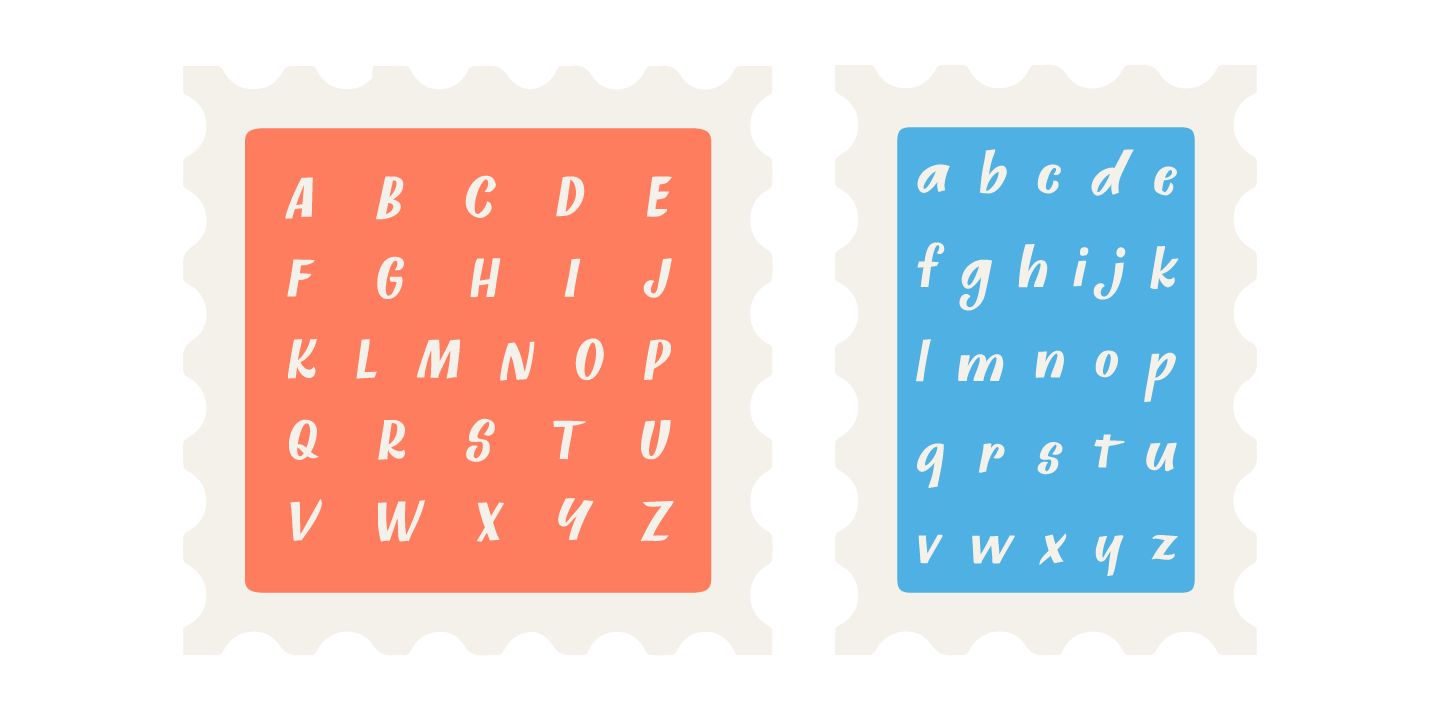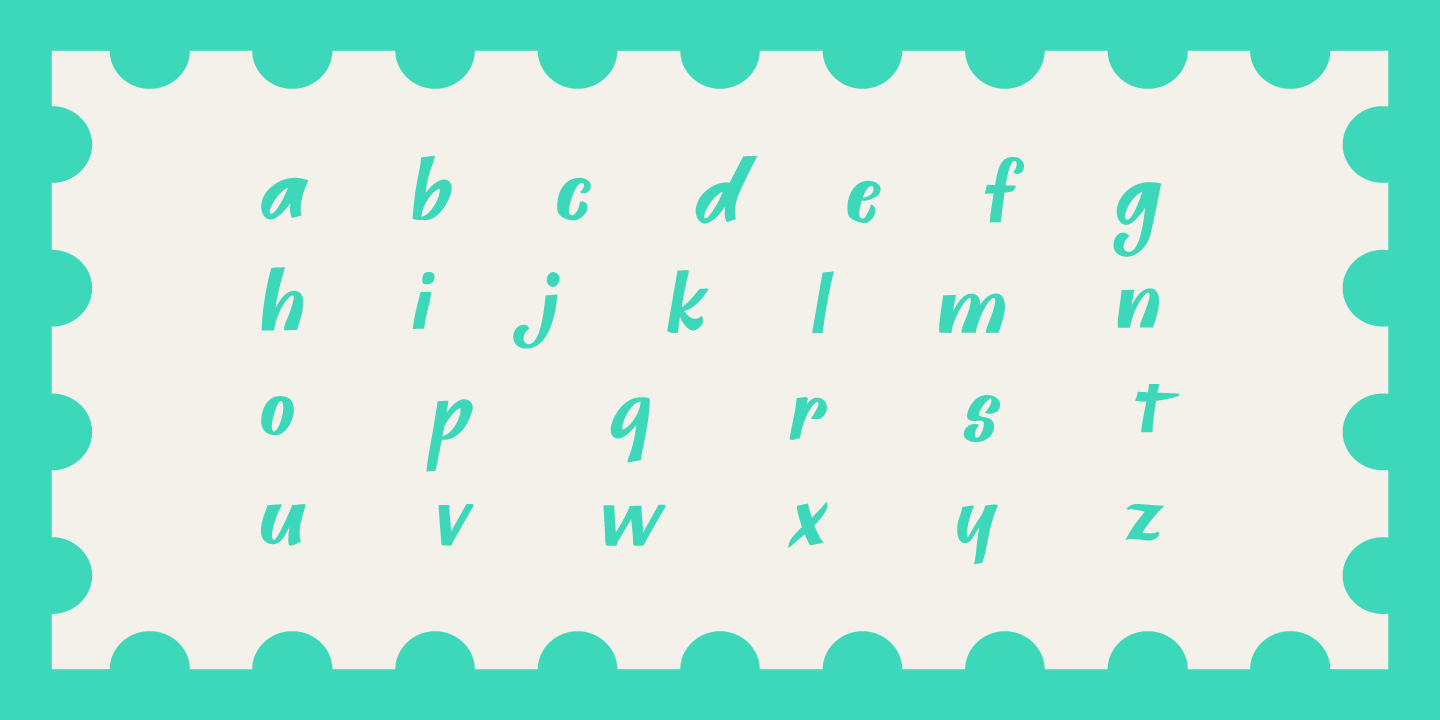
Butterskotch
Font Family by Great Lakes Lettering
Butterskotch is a whimsical 'semi script? from the fine folks Great Lakes Lettering which features some of that ?golden never olden? Molly Jacques lettering that we've come to know and love. Be sure to try it out in your opentype aware design programs and activate the contextual alternates feature for some innovative contextual interplay!